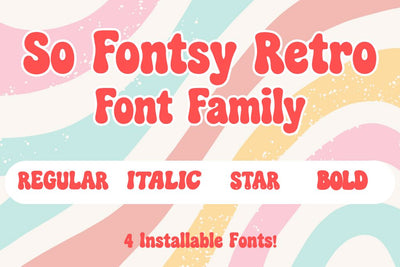
So Fontsy Retro Font Family | 4 Font Bundle | Groovy Retro Fonts for Cricut | Installable Digital Fonts for Crafters Designers
Bring the fun, groovy vibes of retro design to all your creative projects with the So Fontsy Retro Font Family — a bold, bubbly 4-font bundle including Regular, Italic, Star, and Bold styles! Perfect for crafting personalized t-shirts, mugs, tumblers, cards, signs, and digital designs using Cricut, Silhouette, Canva, Procreate, or any design software. Each font installs easily on both Mac and PC, giving you professional-quality retro typography right at your fingertips. Whether you're a seasoned designer or a DIY crafter, this versatile font family delivers maximum charm and creativity in every project.